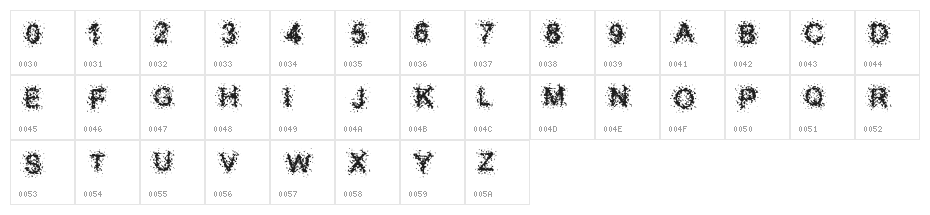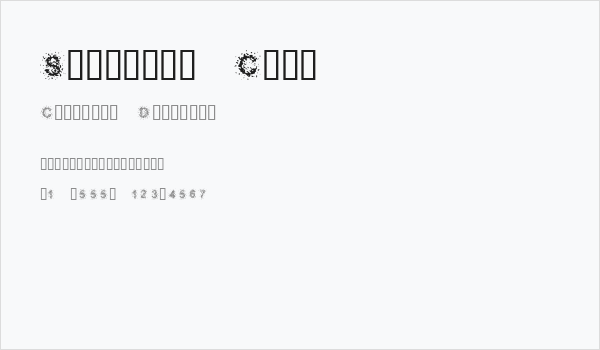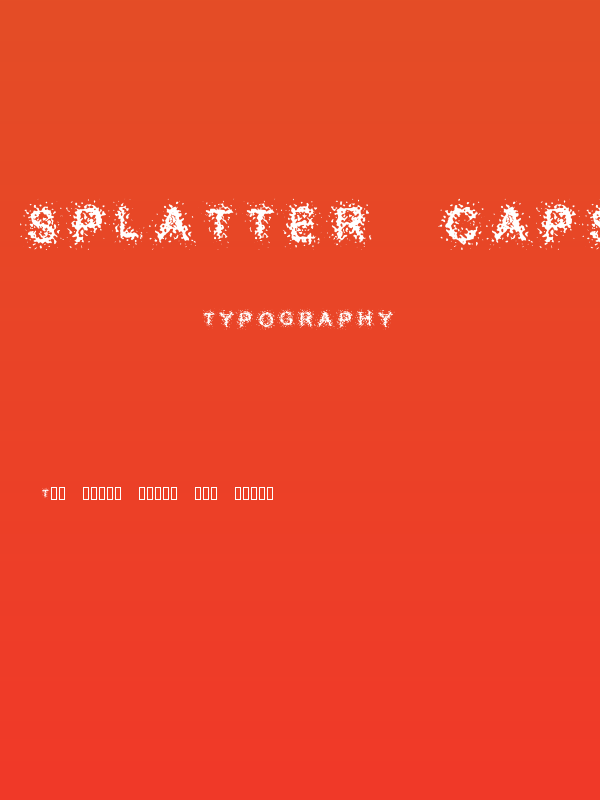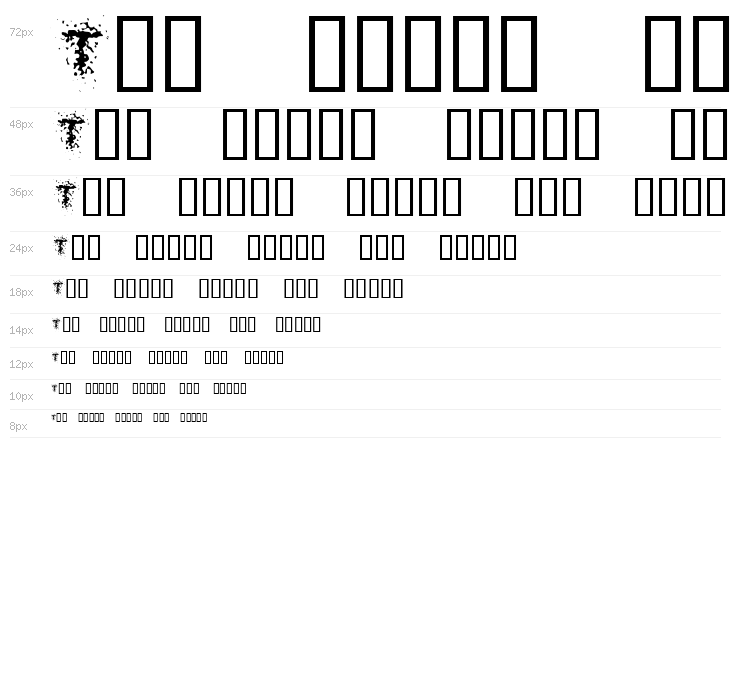
Splatter Caps Font
| Anwendungsfall | Headlines, Posters, Artistic Designs |
| Vorgeschlagene Projekte | This font is perfect for album covers, event posters, street art designs, and any project that requires a bold and artistic statement. |